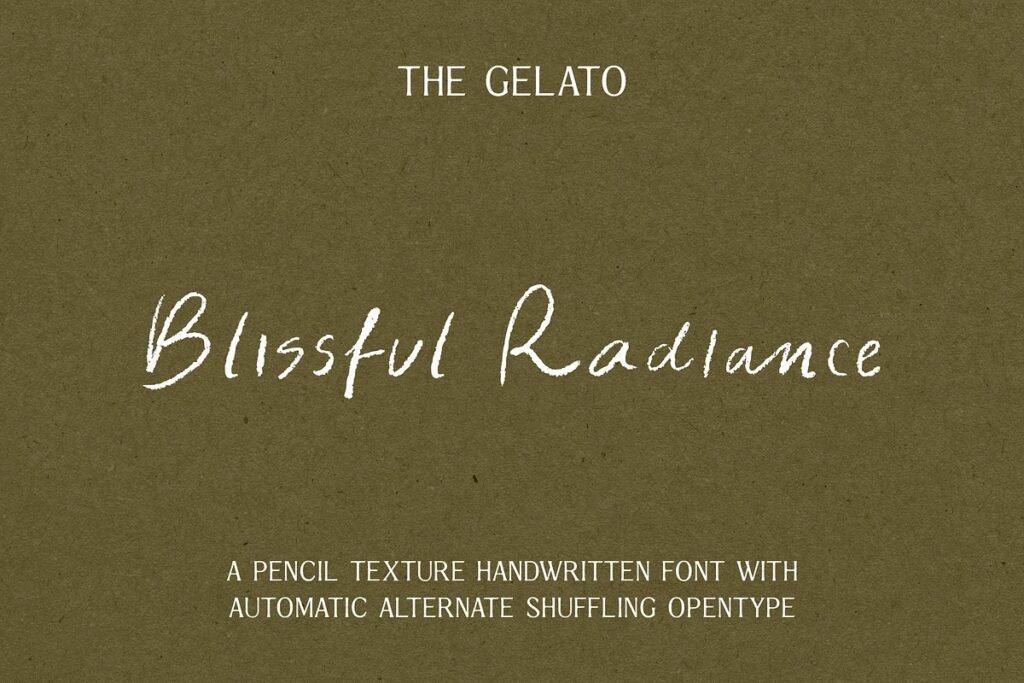
Blissful Radiance – The Handwritten Font with a Personal Touch
Introducing Blissful Radiance, a unique handwritten font that exudes warmth and creativity. Designed with a pencil-texture effect, this font adds an organic and authentic feel to any project. Whether you’re creating personal notes, designing invitations, or building a brand, Blissful Radiance is the ideal choice for a whimsical yet elegant handwritten touch.
Key Features of Blissful Radiance:
Unique Pencil Texture: Each letter is carefully designed to mimic the look of genuine pencil strokes, making your text stand out with a hand-drawn feel.
Multilingual Support: With extensive character sets, Blissful Radiance supports multiple languages, ensuring your designs can connect with a global audience.
Contextual Alternates: To make your designs truly dynamic, Blissful Radiance includes two sets of alternates that automatically shuffle as you type. This feature eliminates repetitive letters, giving your text a more authentic handwritten appearance.
Why Choose Blissful Radiance?
This font is versatile, perfect for a variety of projects, including:
Invitations: Add a personal and whimsical touch to wedding, birthday, or event invitations.
Branding: Ideal for businesses looking to convey warmth and authenticity in their logos and designs.
Social Media Graphics: Create eye-catching and creative posts that stand out in a crowded feed.
Heartfelt Notes: Whether it’s a card for a loved one or a simple handwritten note, Blissful Radiance adds the perfect personal touch.
Versatility and Charm in Every Stroke
Blissful Radiance’s charming pencil texture and contextual alternates give every project a creative and authentic flair. It seamlessly blends elegance and playfulness, making it the go-to font for designers looking to elevate their work with a personal, handwritten feel.
Add the magic of Blissful Radiance to your design toolkit and let your creativity shine!